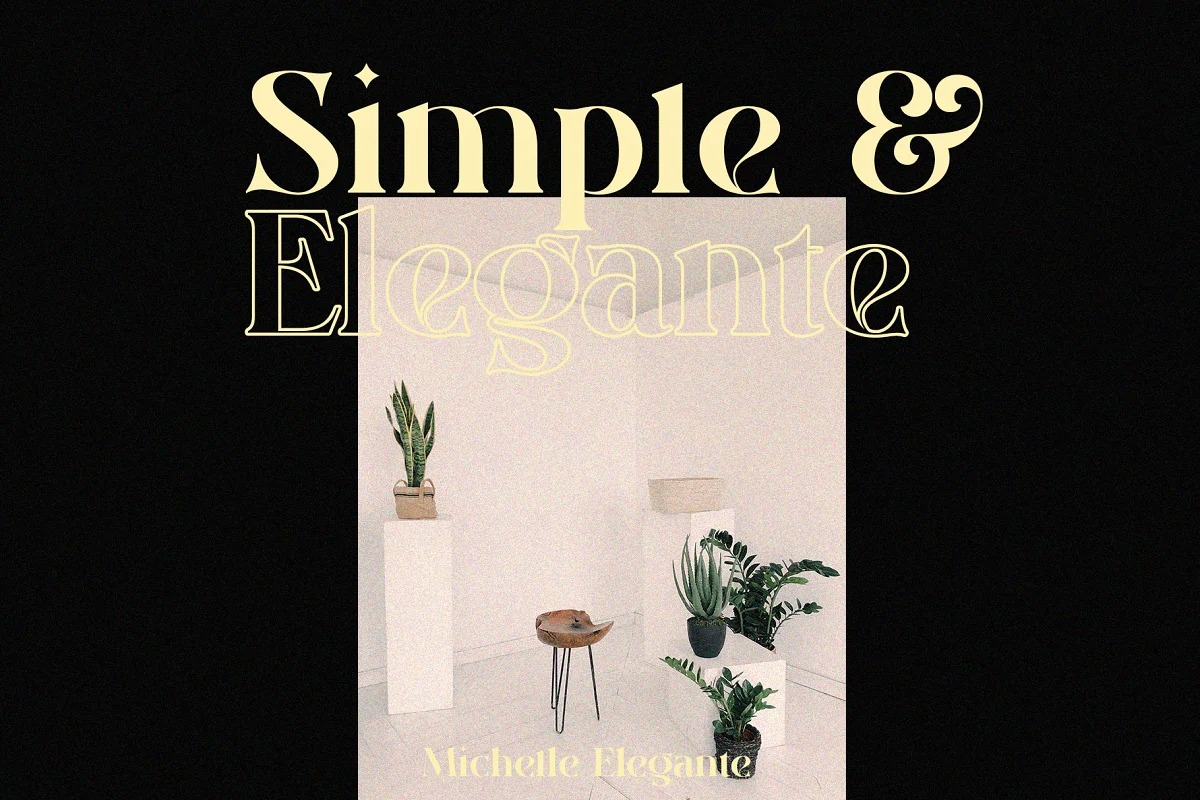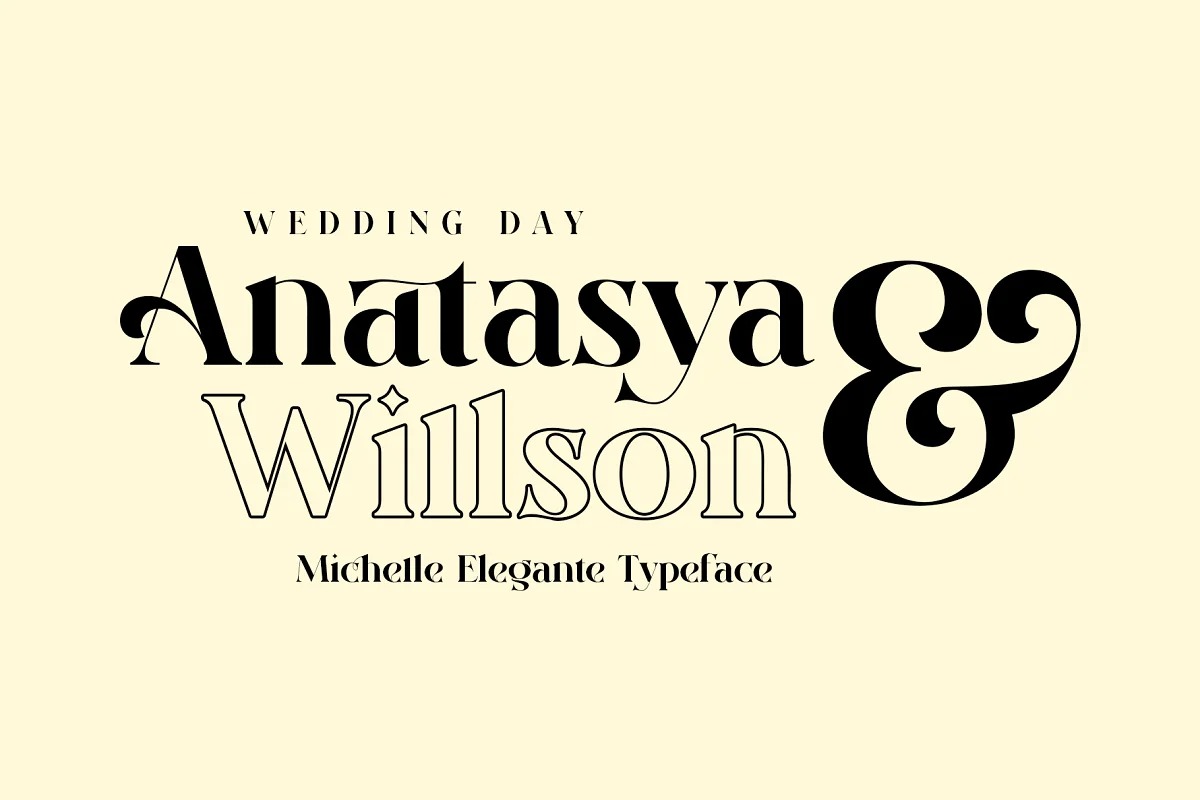
Michelle Elegante Font
Michelle Elegante Serif Font is a elegant modern and classy serif typeface manufactured by INKSUN™. This font will add nuance to any of your work. This font is perfect for posters, social media posts, branding, personal projects, etc. For those of you who are needing a touch of elegant, stylish, classy, chic and modernity for your designs, this font was created for you!